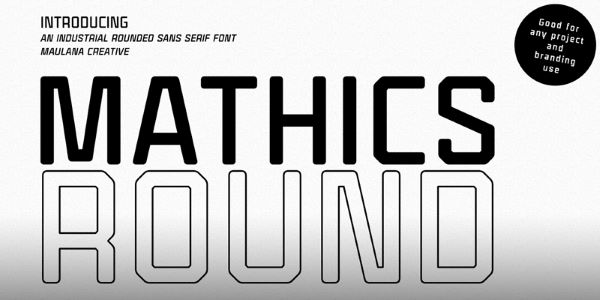
Mathics Font
Mathics Font is a Tech Font by Maulana Creative built on angular, sharp lines that symbolize the digital age with a bold, futuristic edge. Its geometric construction pushes boundaries in the most deliberate way — the absence of numbers, rather than limiting creative expression, opens up unexpected possibilities for designers willing to push past convention.
It excels on tech show posters, sci-fi movie titles, gaming projects, and any design context where modern digital sharpness is the primary visual goal. Browse our full library of Free Fonts and discover more bold, futuristic typefaces from independent designers worldwide.